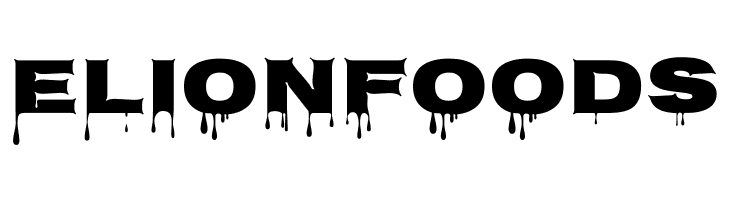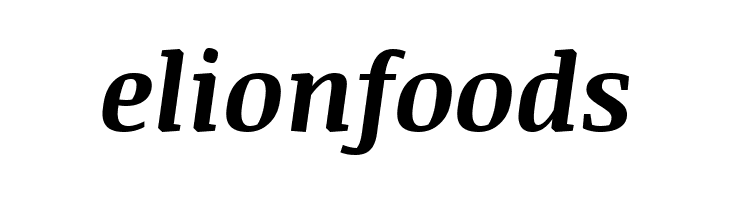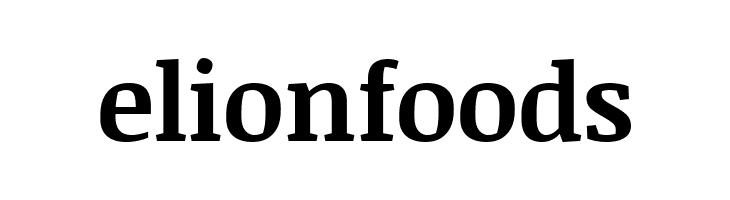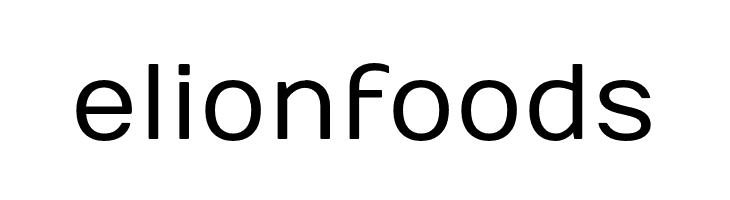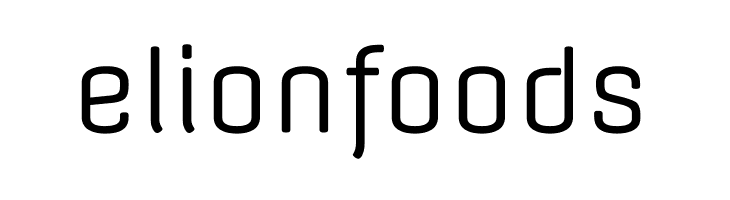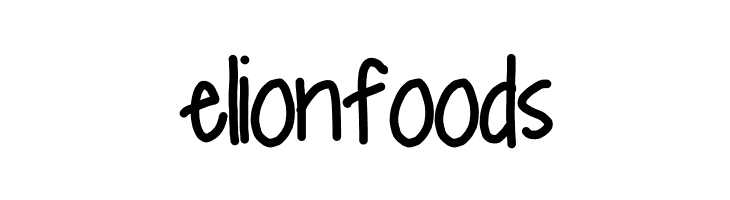
A bold, dripping font perfect for spooky or Halloween-themed designs.
A bold, dripping font ideal for horror-themed designs.
A modern serif typeface with clean lines and balanced proportions.
A bold, classic serif font with moderate contrast and formal style.
A bold, italic serif font with a classic and authoritative style.
A classic serif font with an elegant italic slant, perfect for formal uses.
A modern, geometric font with rounded edges and a clean, minimalistic style.